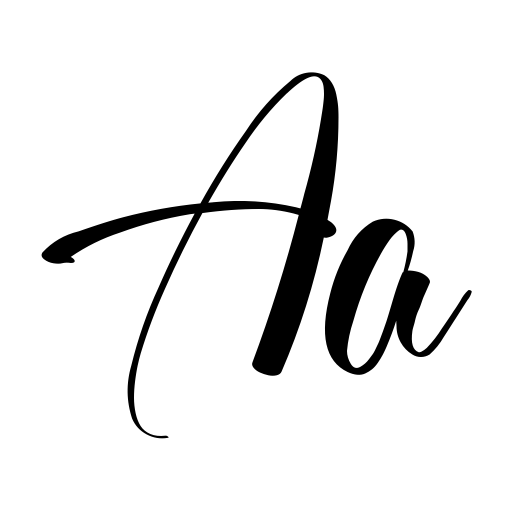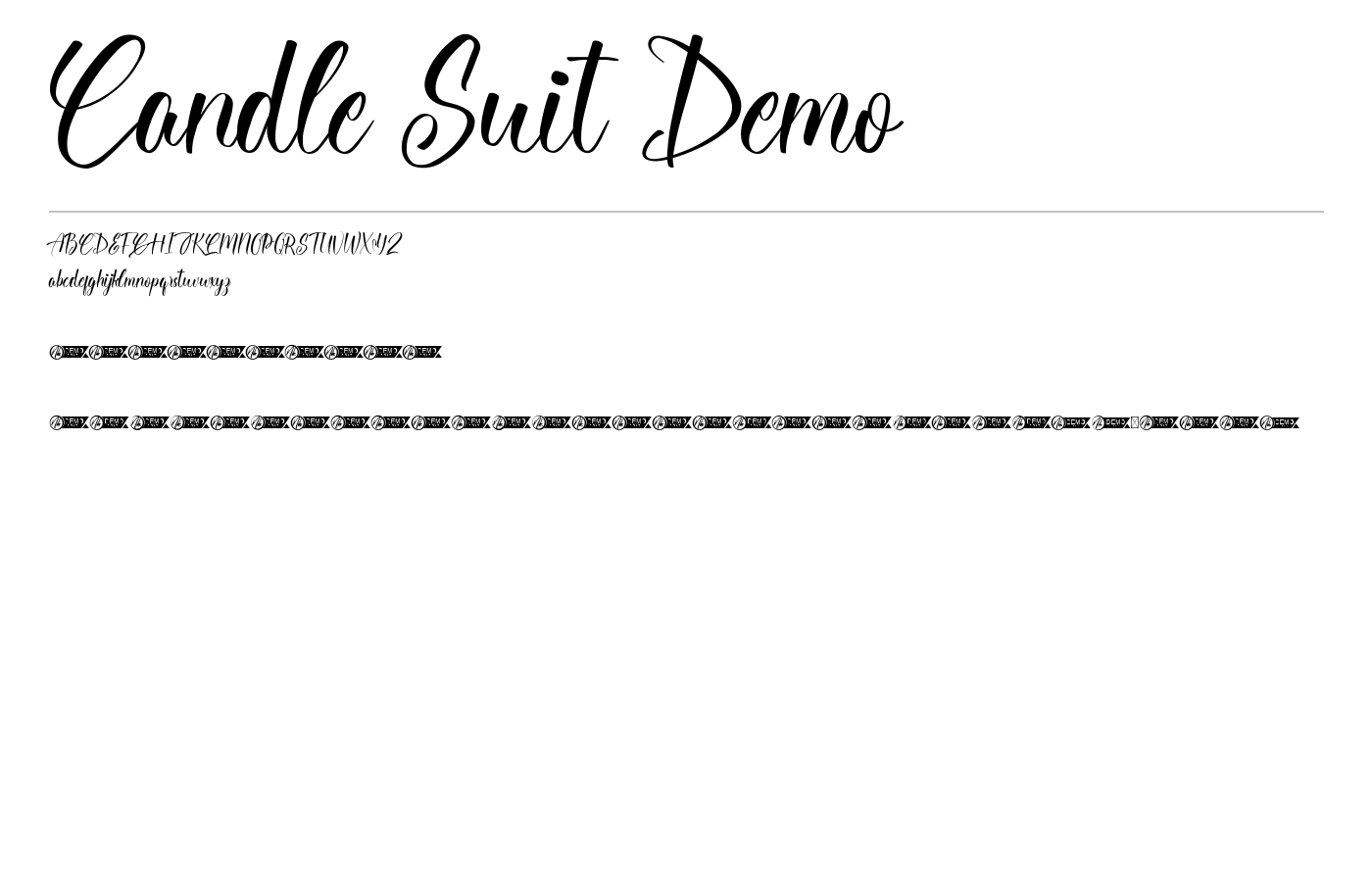
Candle Suit Demo is an elegant script font characterized by its flowing, handcrafted style and smooth, varied strokes that mimic natural handwriting. This font exudes a graceful, sophisticated personality, making it ideal for invitations, branding, and stylish headlines where a personal and refined touch is desired. Its graceful curves and delicate letterforms create a warm, artistic vibe perfect for fashion, beauty, and creative projects.
Candle Suit Demo Font
About Candle Suit Demo Font